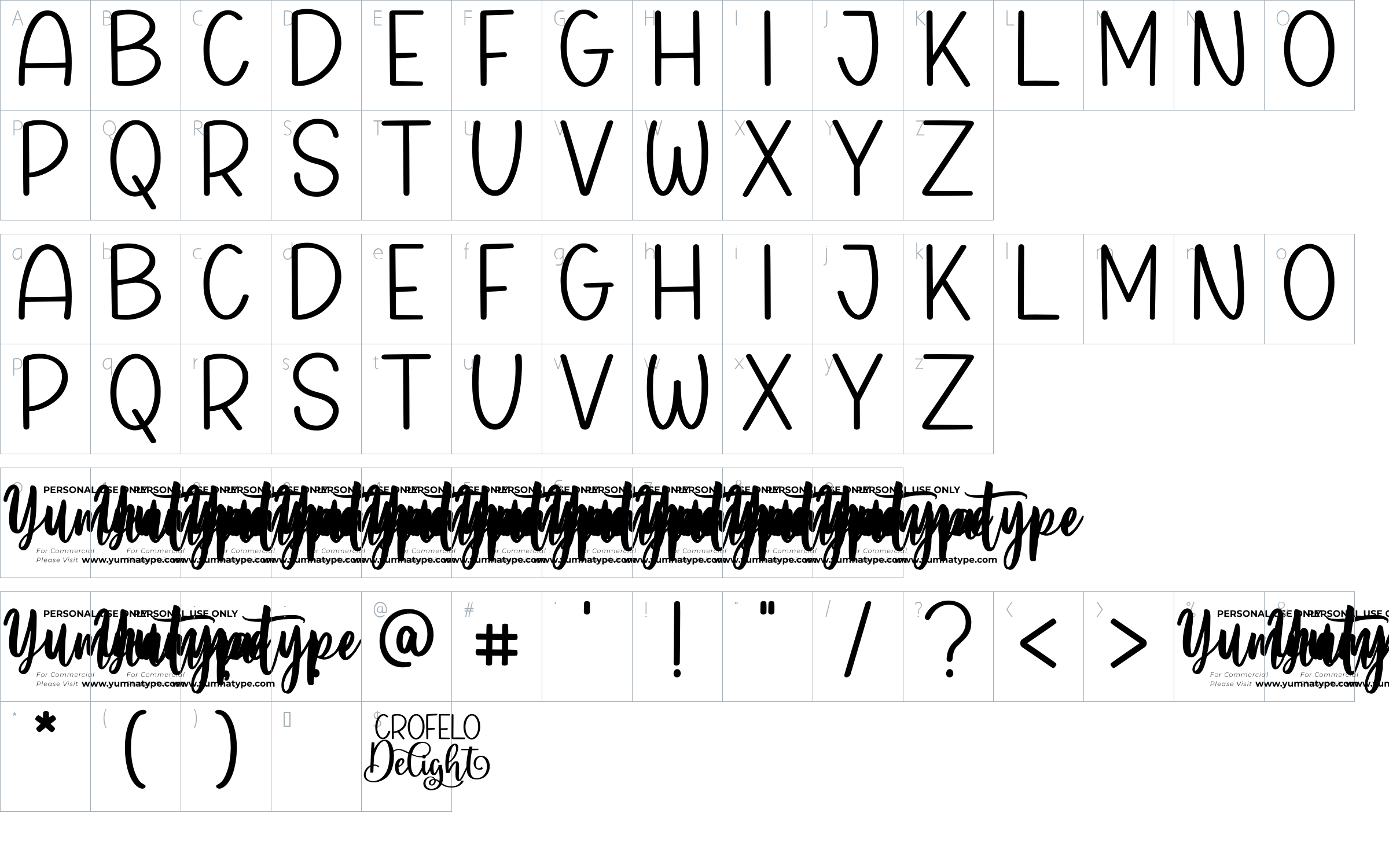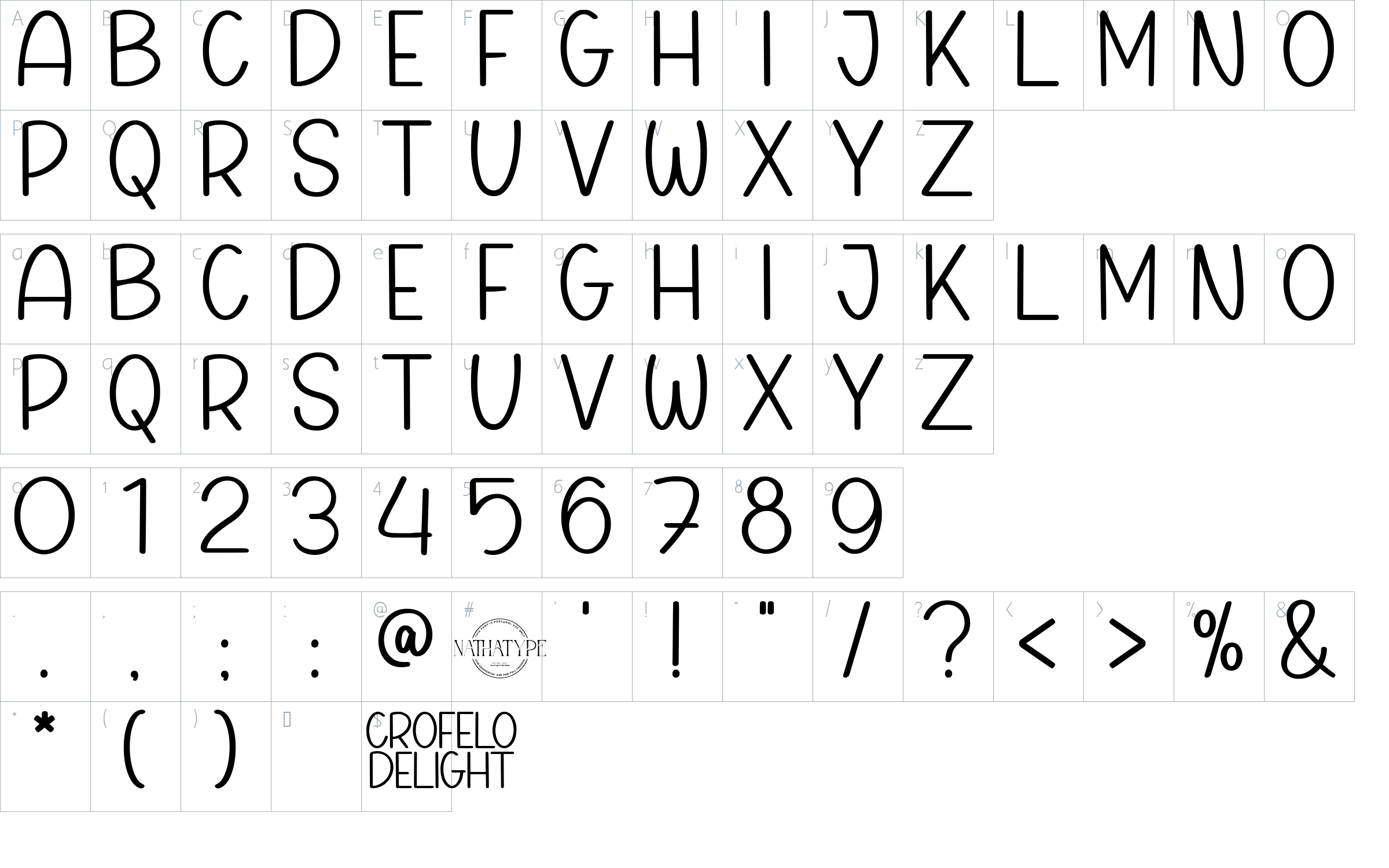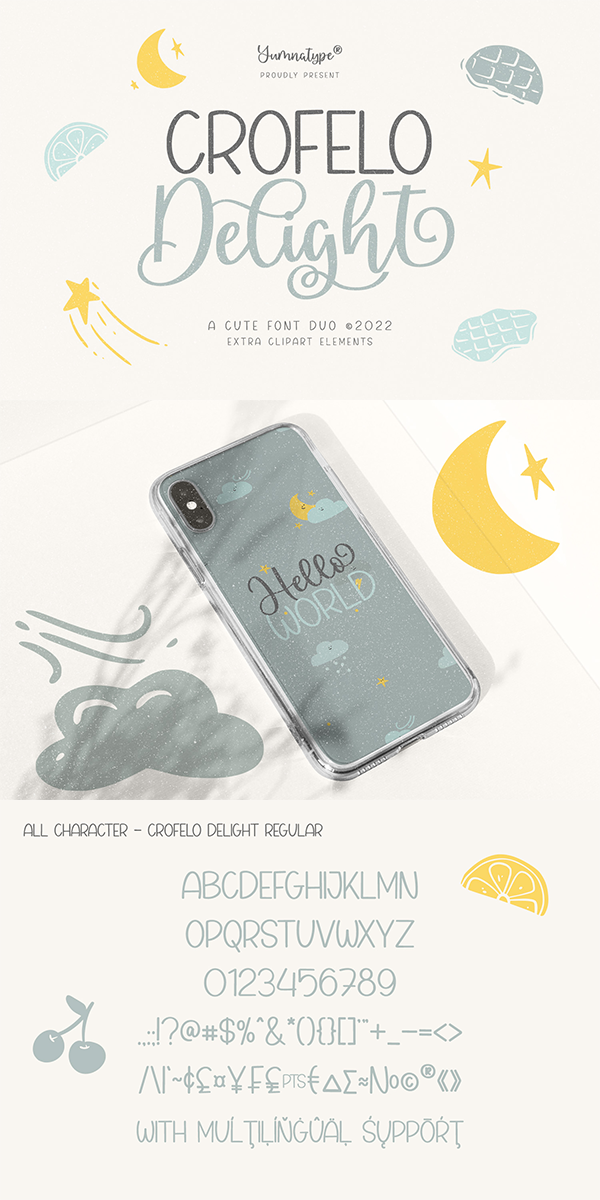
Crofelo Delight Font
About Crofelo Delight
It’s the ultimate way to be you. Crofelo Delight-with the combination between cute script and gorgeous display font style you can mix, match, and call your own. This harmonious font duo supporting and advocating each other to make awesome result in your design.
-Lower and uppercases
It is perfectly used for many design projects, such as poster, logo, book cover, branding, heading, printed product, merchandise, quotes, social media campaign, etc. Get more inspiration about how to use it by seeing the font preview.